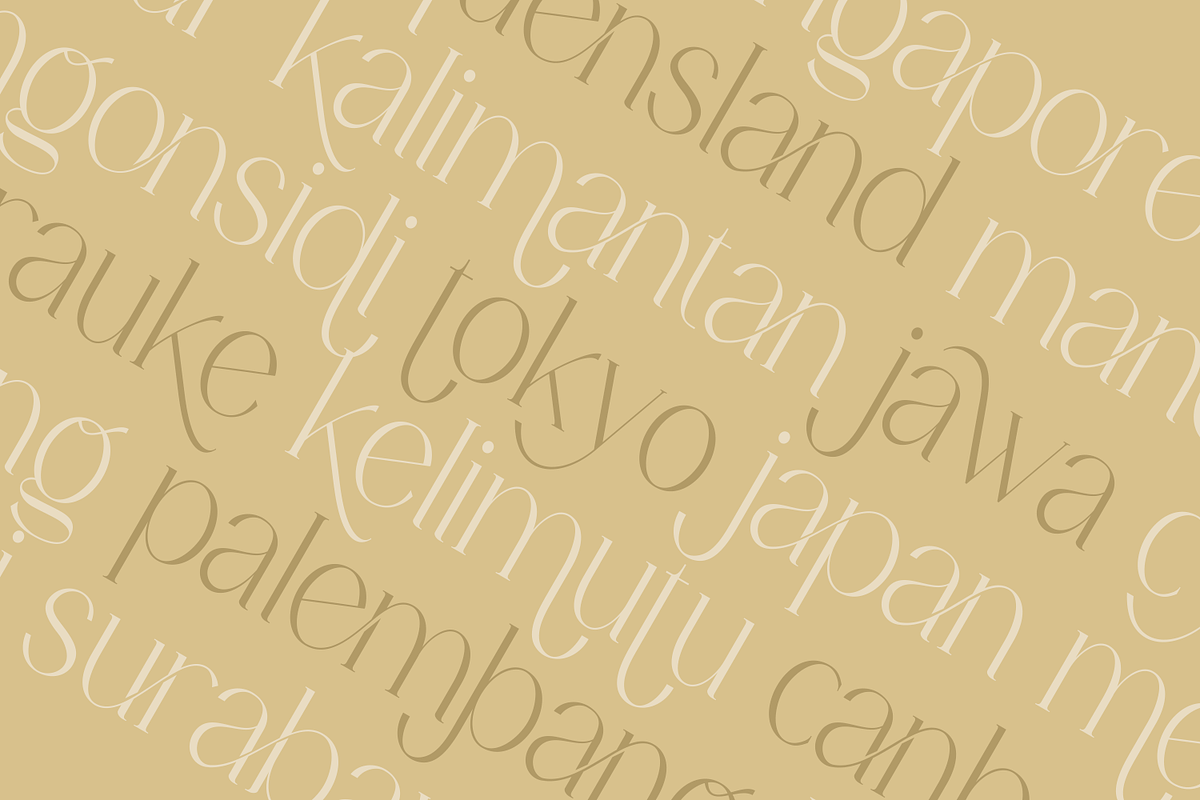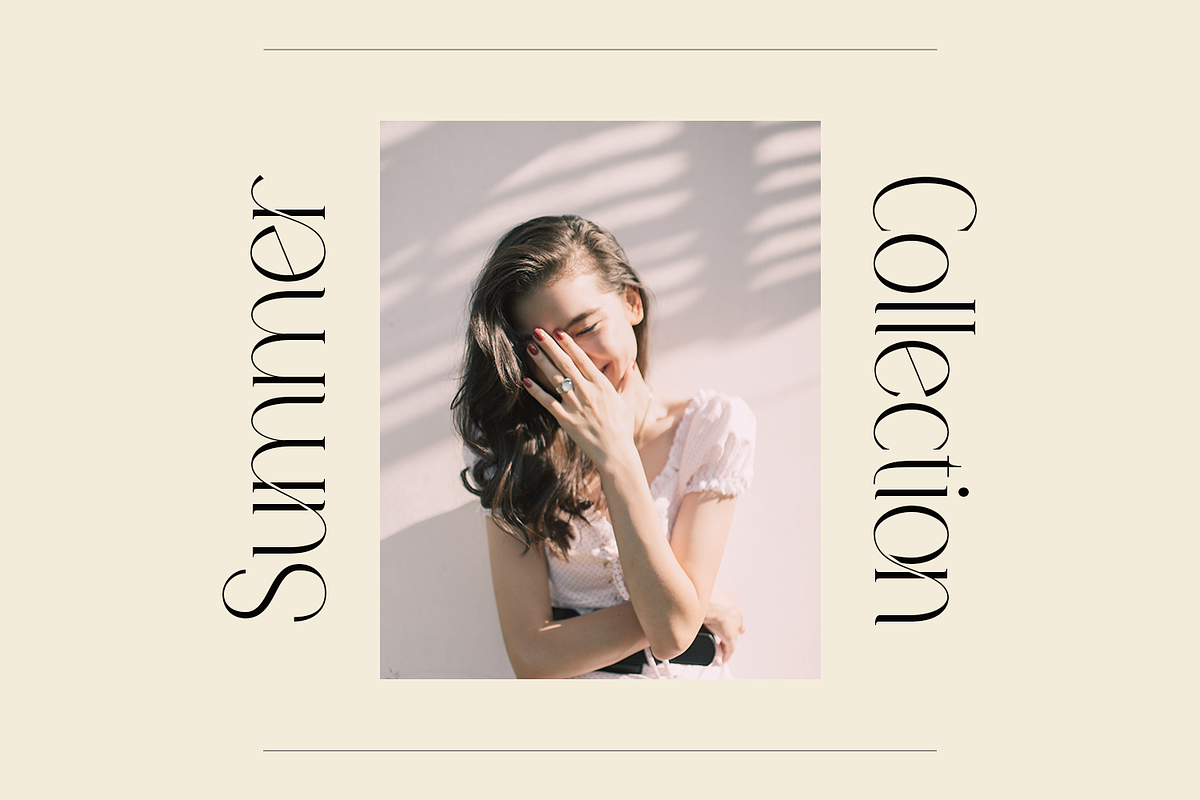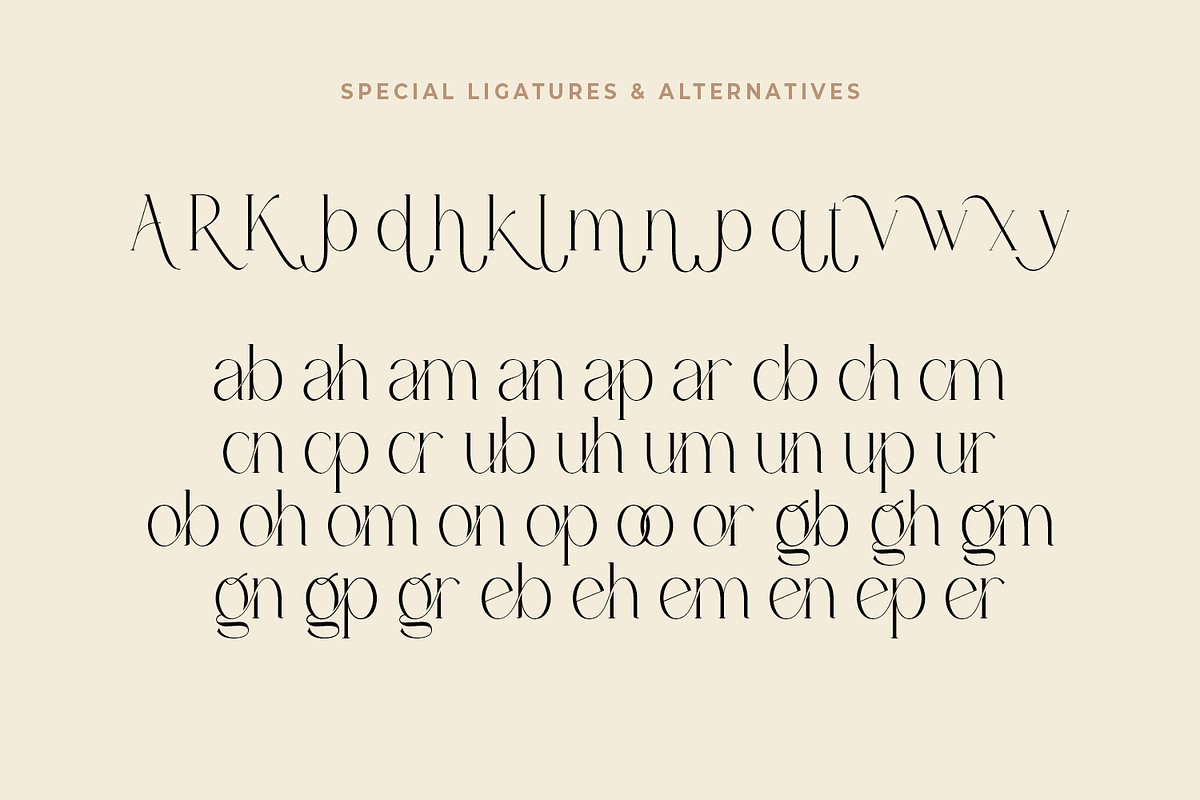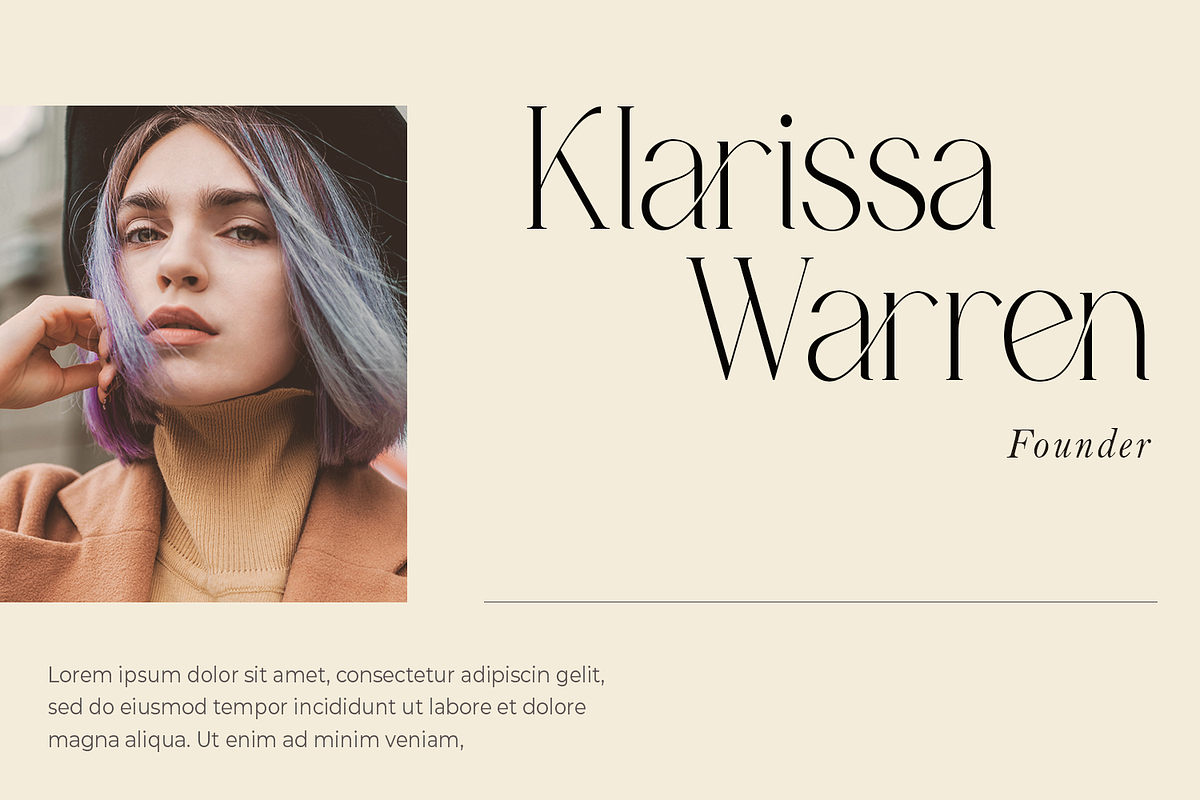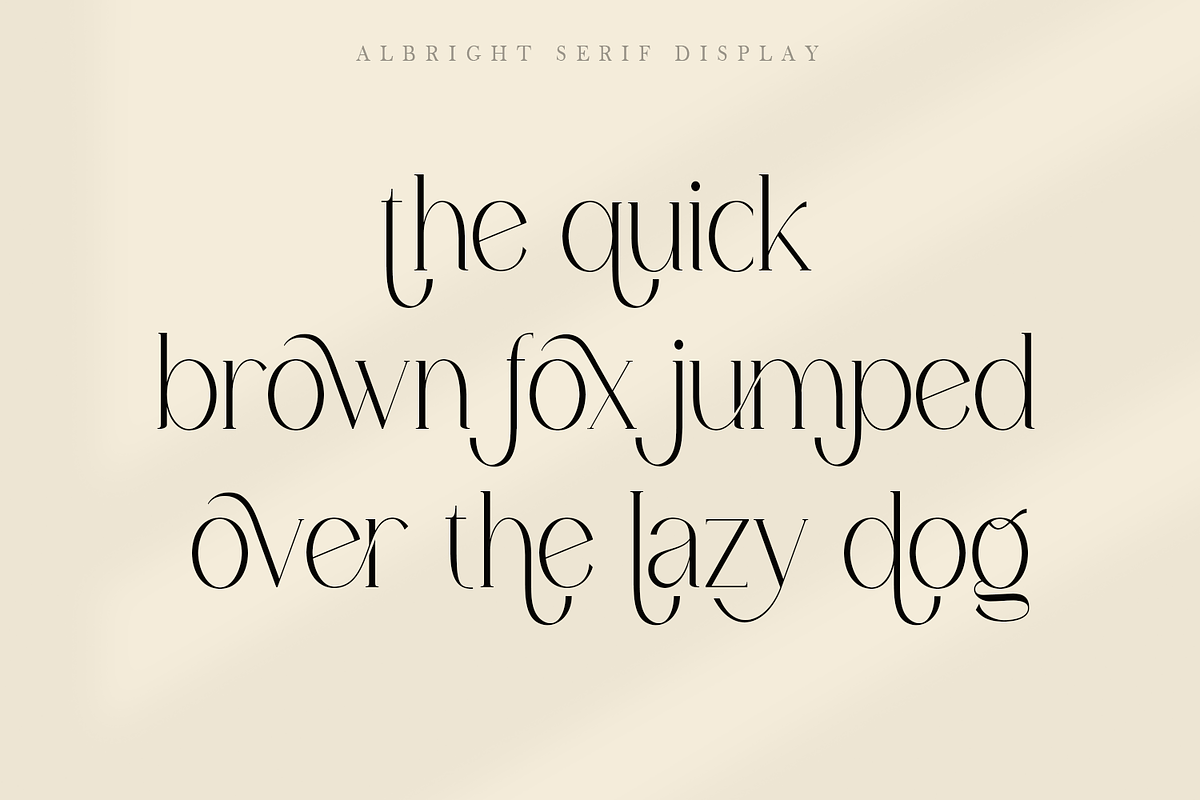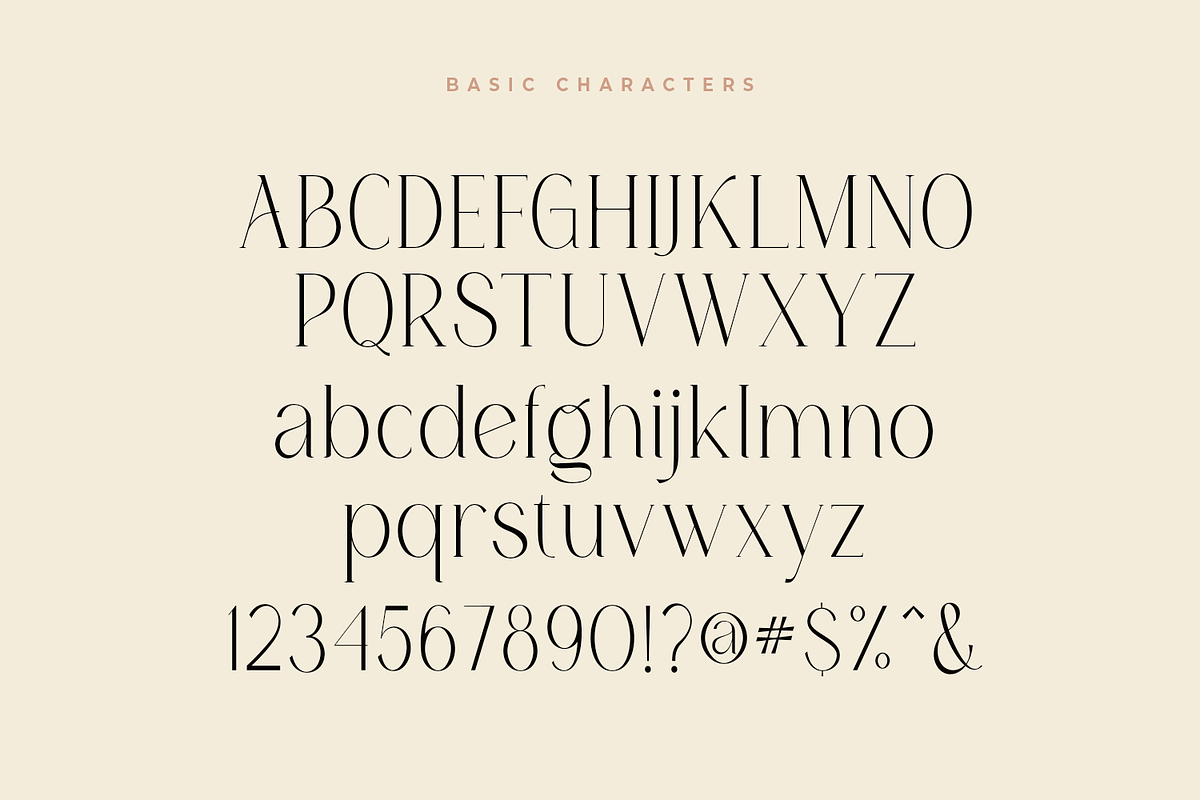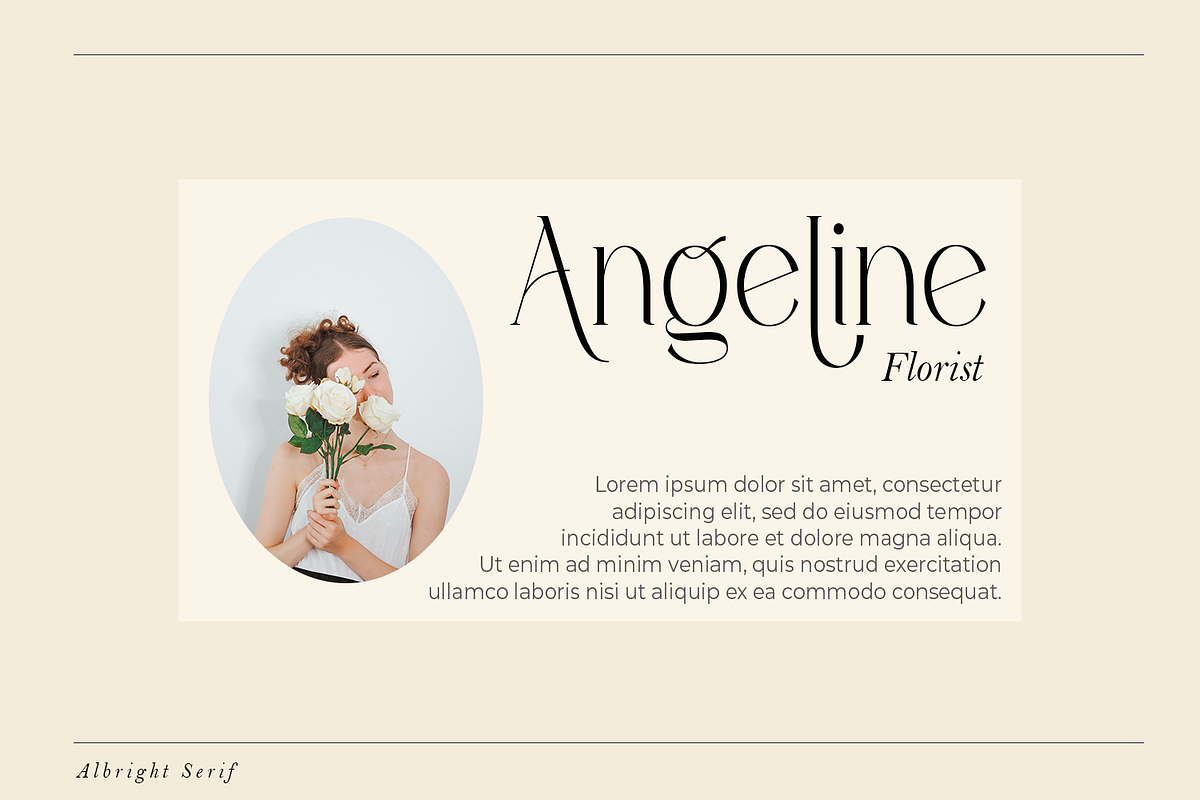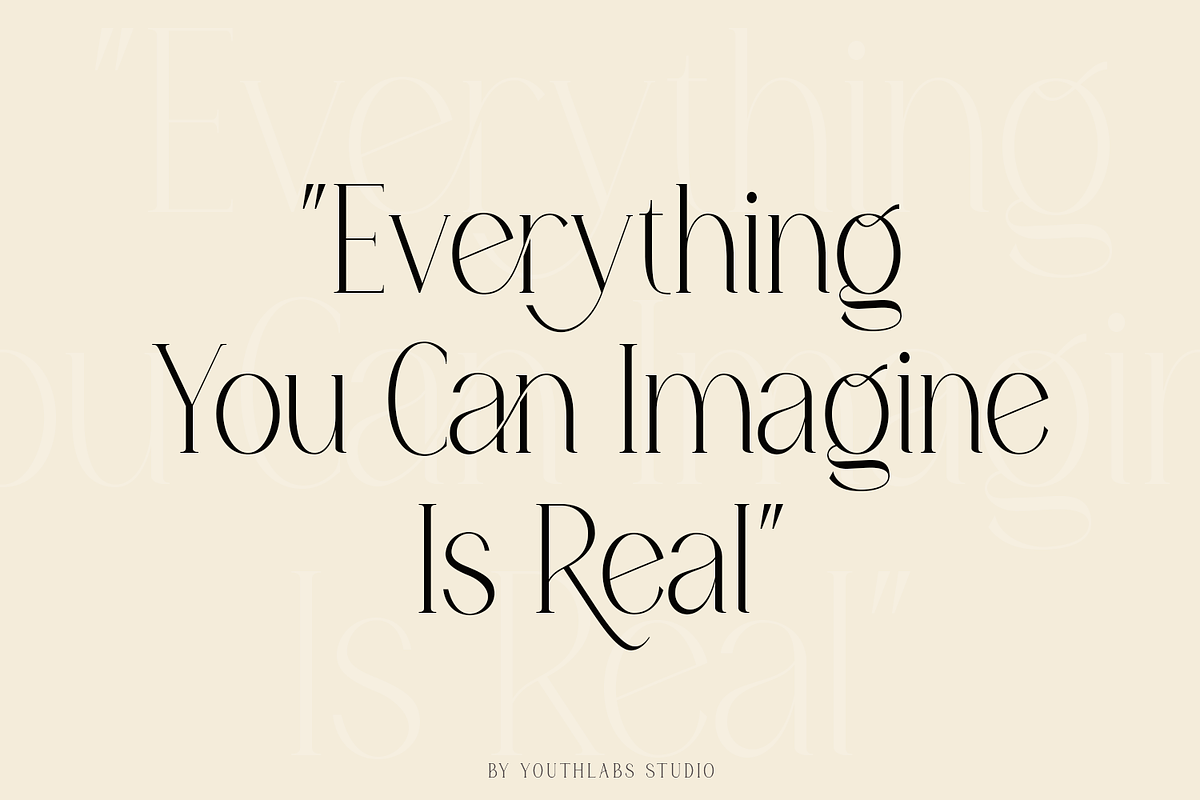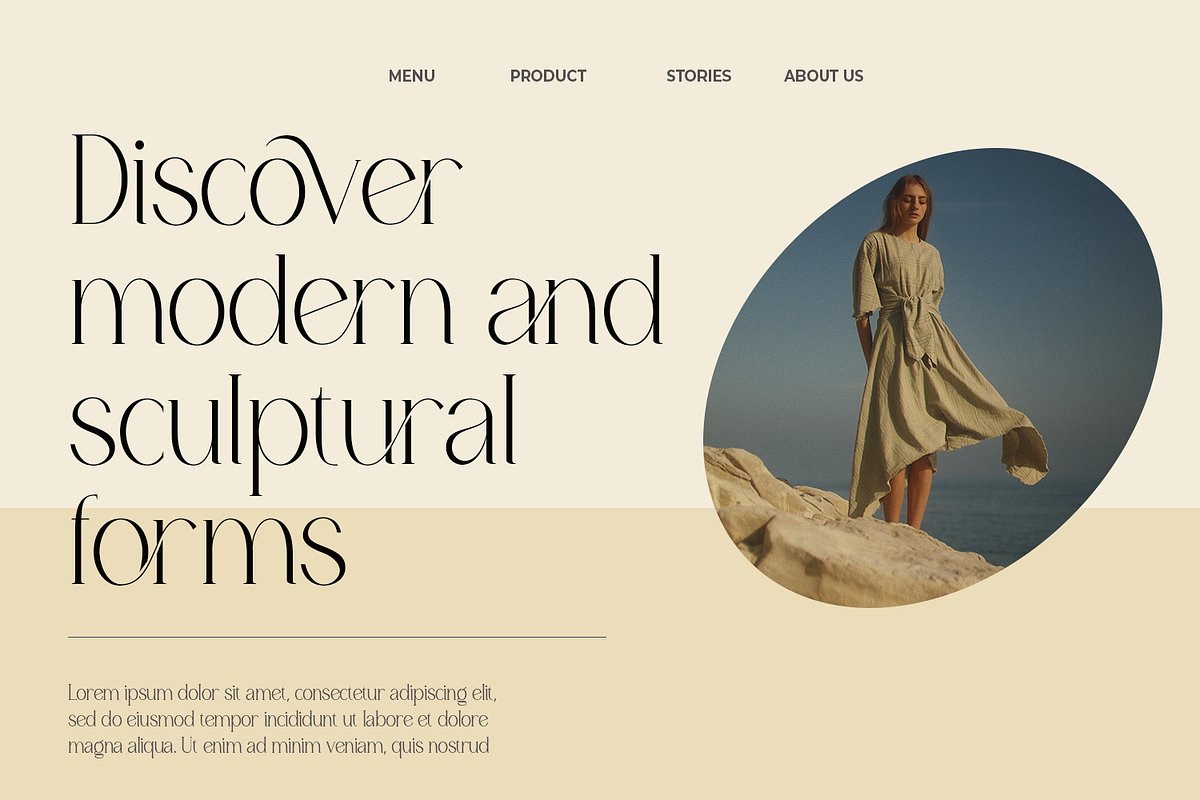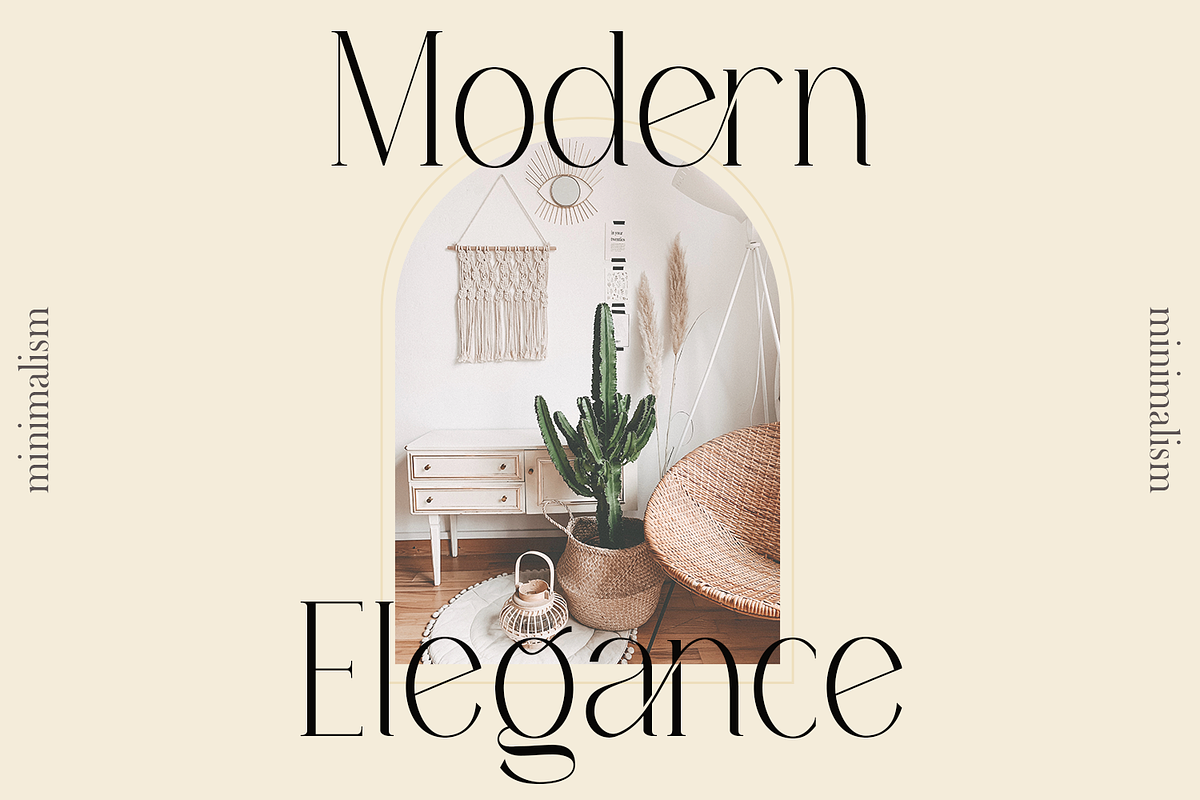
Albright | Modern Typeface Serif
Albright font is a SERIF display font that shows a modern elegant with unique ligatures and alternates to leverage designer or product owner that need solutions to make their design look more modern and stylish.This is perfect for branding and logo design. You will get classy, elegant, and certainly unique logos with this font.